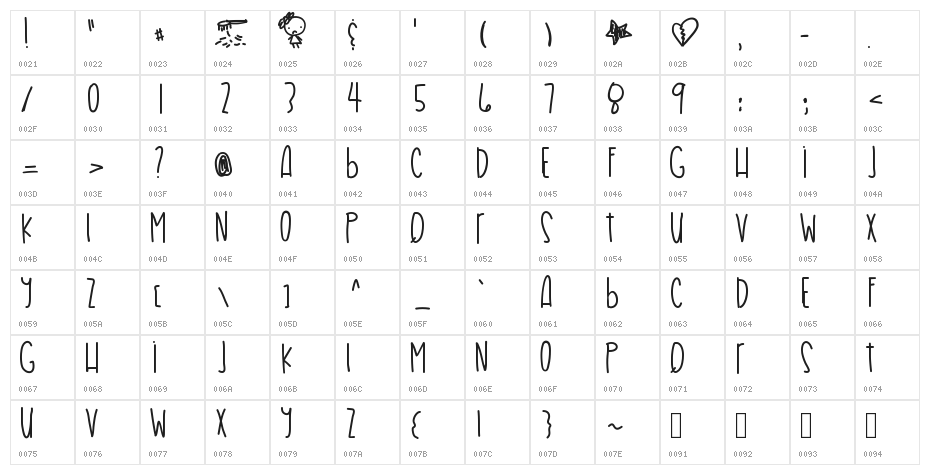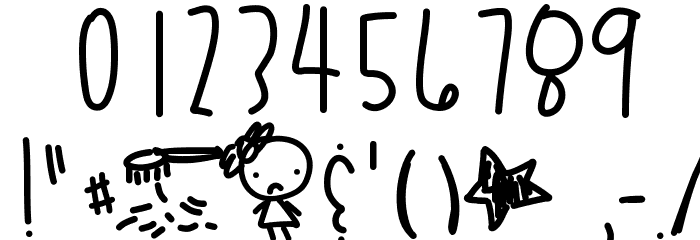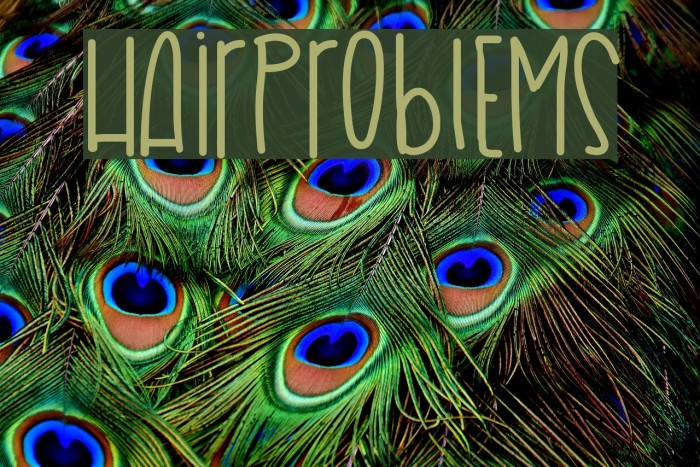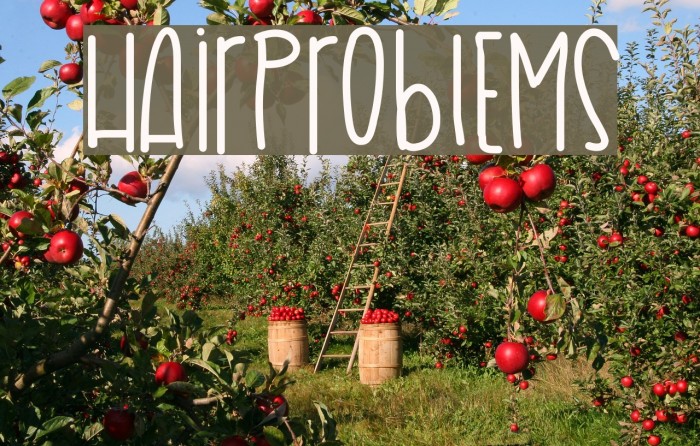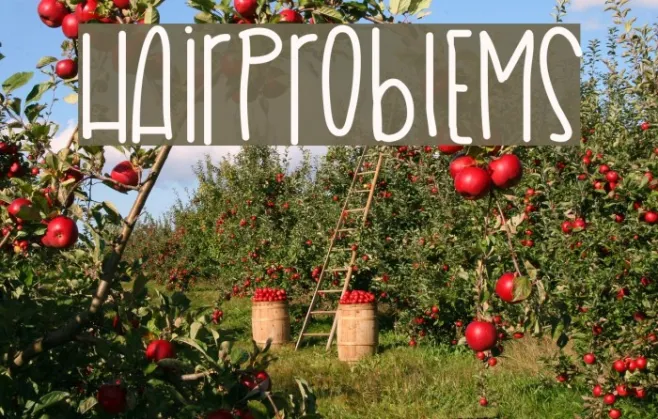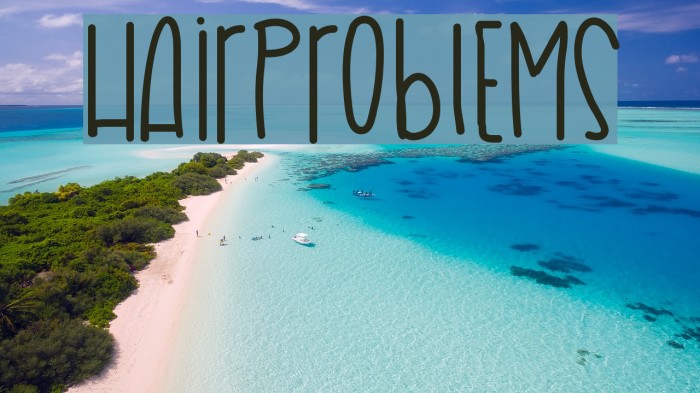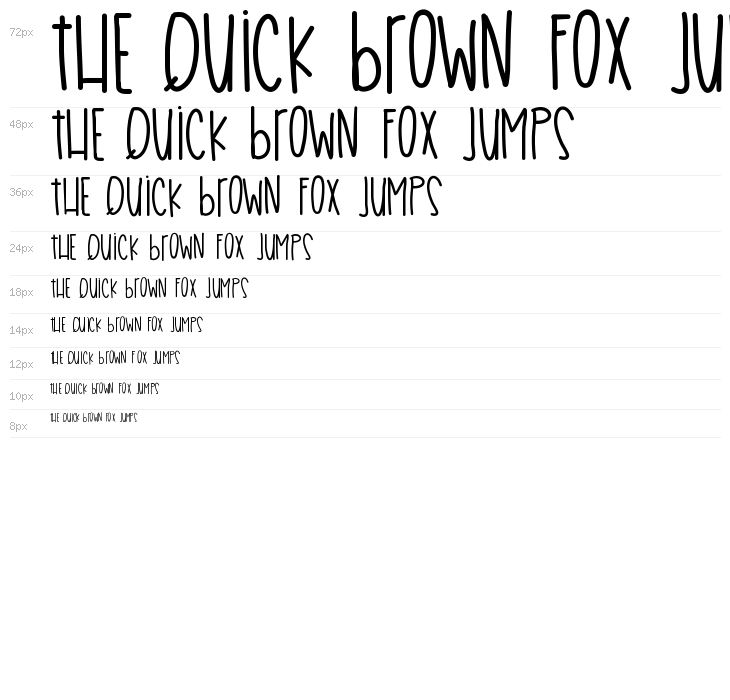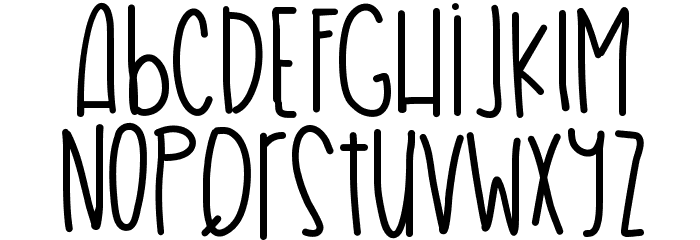
HairProblems Font
HairProblems Description
This playful and whimsical font features tall, narrow characters with a hand-drawn appearance. The strokes are consistent in width, giving it a uniform look, while the slightly irregular shapes add a touch of charm and personality. The uppercase and lowercase letters maintain a cohesive style, with rounded edges and a casual feel. Numbers and special characters are included, matching the overall aesthetic. This font is ideal for projects that require a fun and informal touch, such as children's books, greeting cards, or playful branding.
| Overall Style | Whimsical |
| Use Case | Headlines, Informal text, Branding |
| Proposed Projects | Children's books, greeting cards, playful branding, casual invitations. |